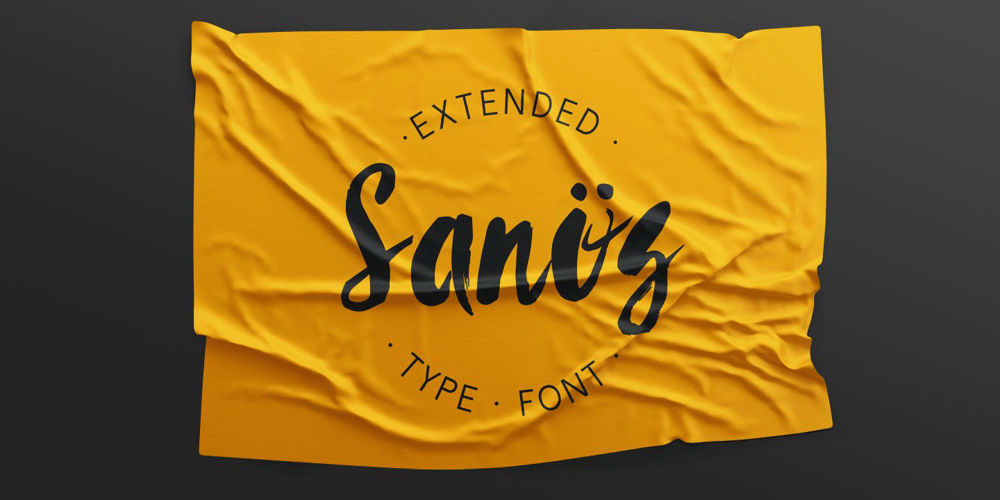
Sanos Extended
Sanos Extended font
Sanos Extended Font Family was designed by Krisjanis Mezulis and published by WildOnes. Sanos Extended contains 1 styles and family package options. Sanos Extened is perfect for handwriting style projects. The font features both uppercase and lowercase letters, so you will have a wide range of characters to use in typographic work. It has updated OpenType features, advanced kerning and multiple language support. This brush script font works best for fashion, beauty products, food, apparel and magazines. Sanos Extended could also be used for film, television, marketing, advertising and websites. Made by Krisjanis Mezulis.